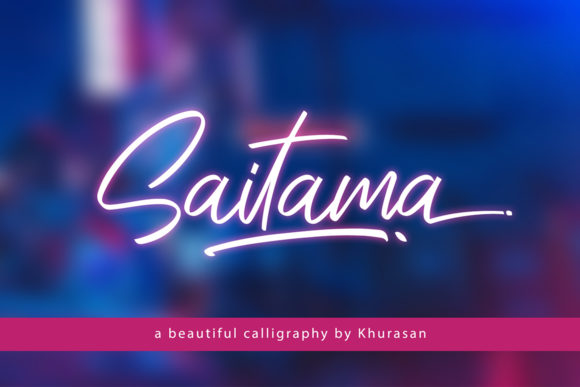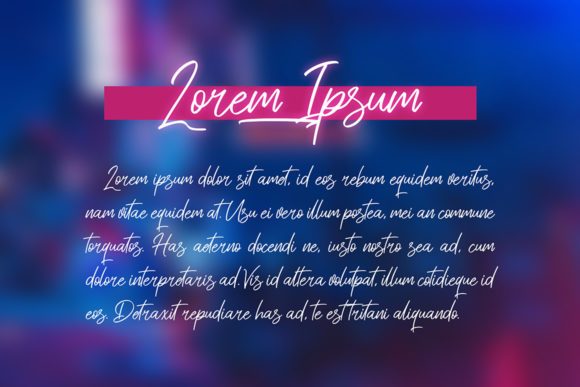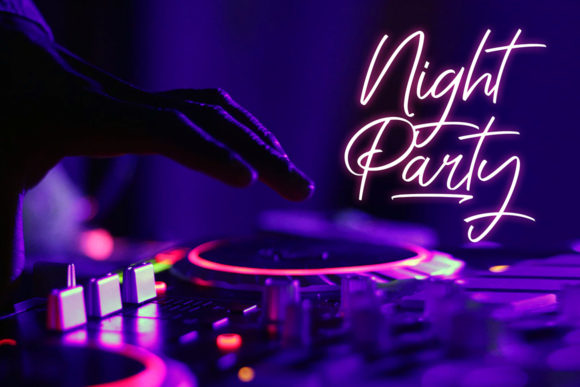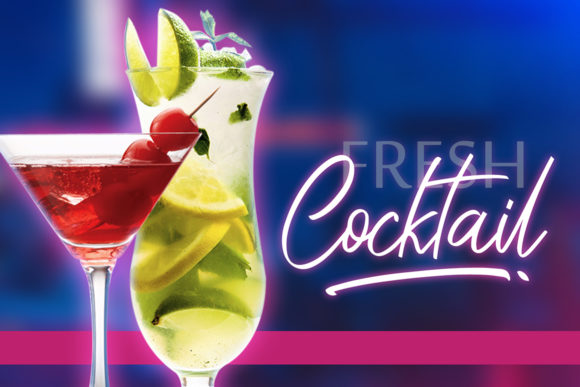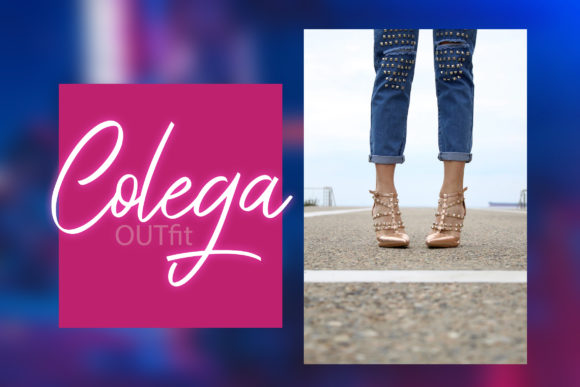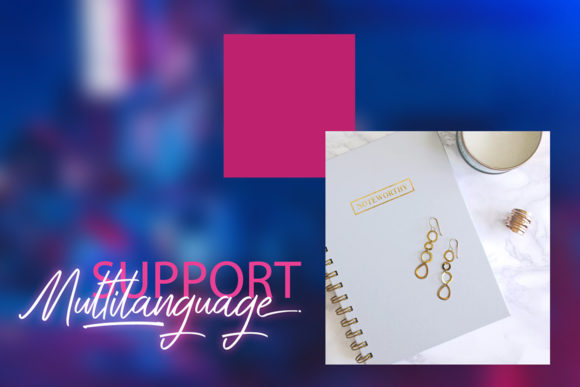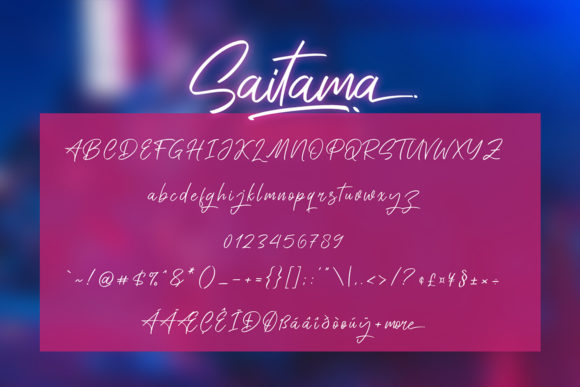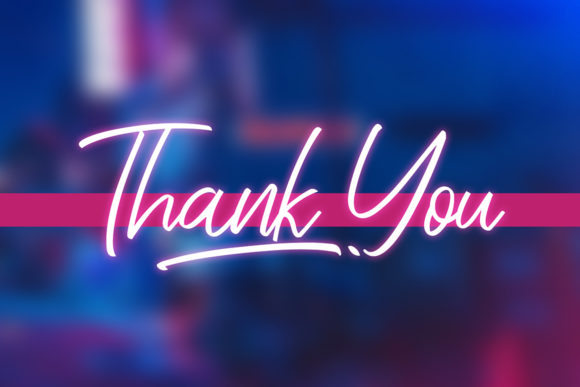
Saitama Font
About Saitama Font
Saitama is a gorgeous and light handwritten font. Reminiscent of the flashy 80’s, it will turn any design project into a true stand out.